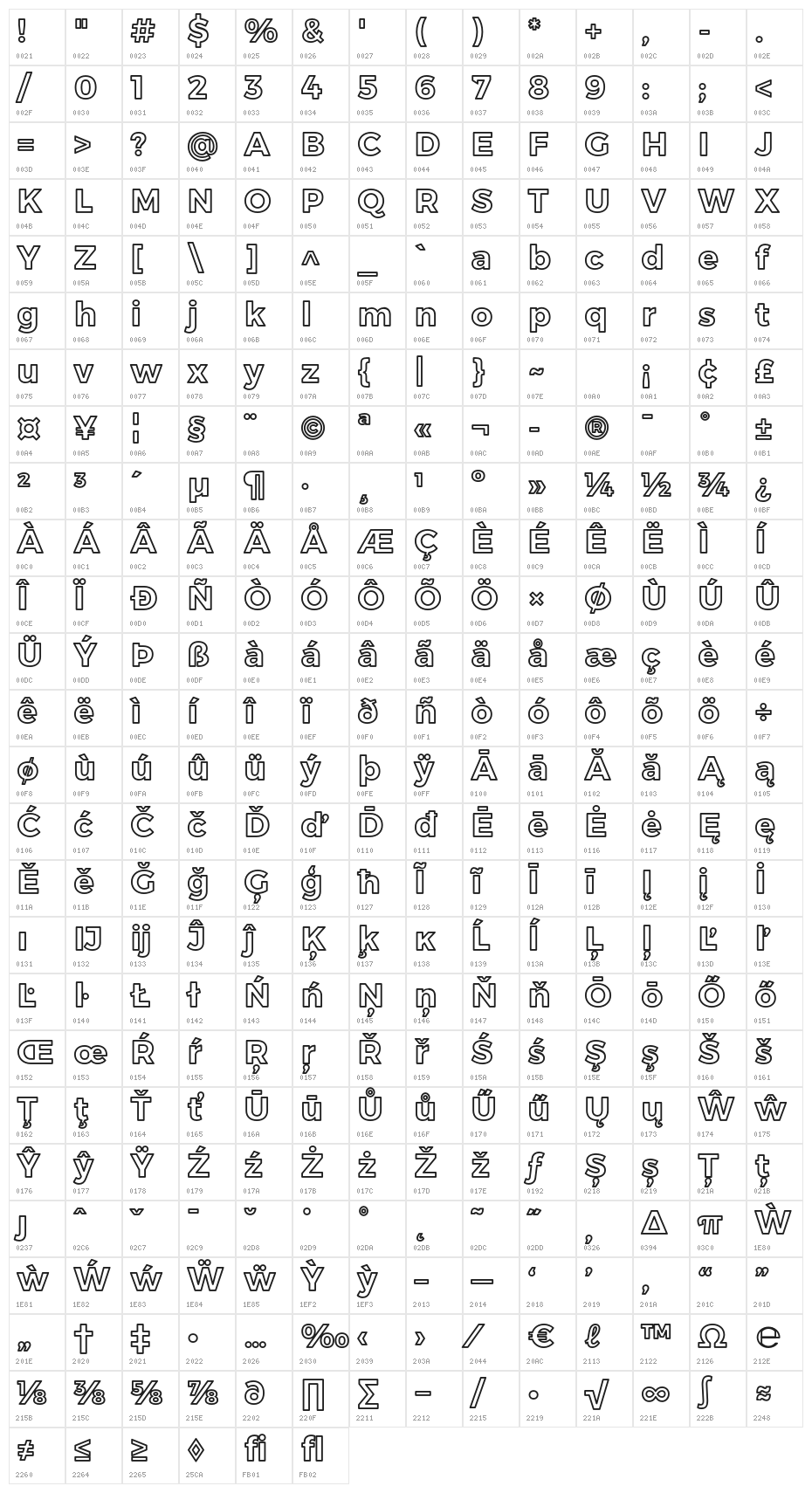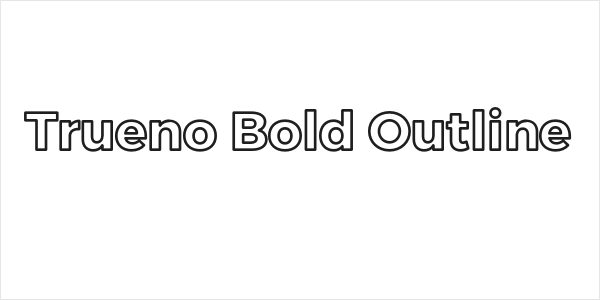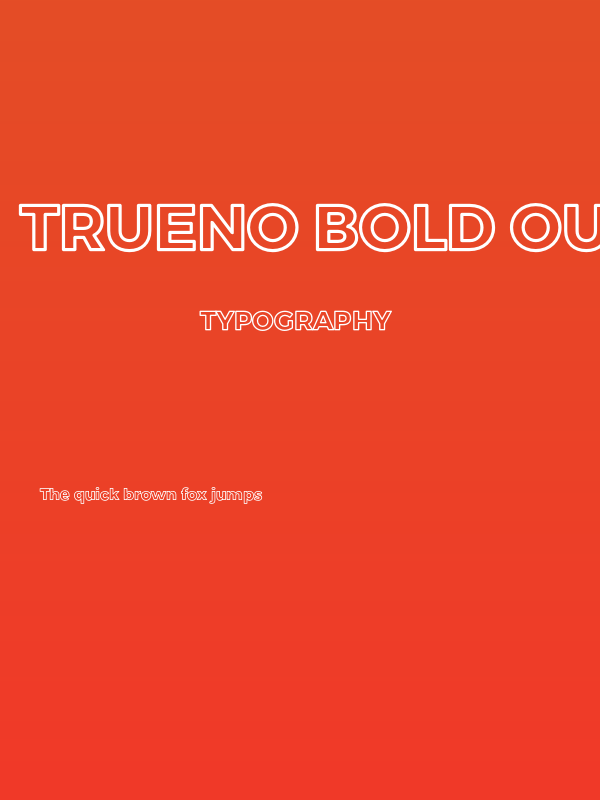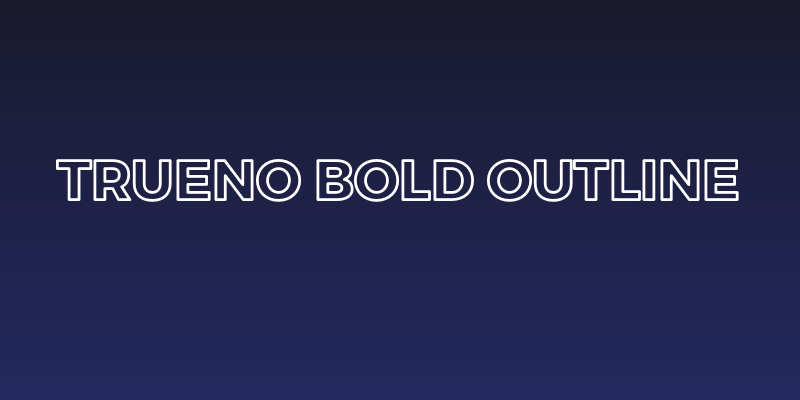
Trueno Bold Outline Font
Trueno Bold Outline Description
This font features a bold, outlined style that combines modern aesthetics with a clean and structured appearance. The uppercase and lowercase letters are well-defined with consistent stroke widths, providing a balanced and harmonious look. The numerals and special characters maintain the same bold outline, ensuring uniformity across all glyphs. The font's design is versatile, making it suitable for various applications where a strong visual impact is desired. Its outlined nature adds a layer of depth and dimension, making it stand out in both digital and print media.
| Proposed Projects | Ideal for headlines, posters, branding, and any design project requiring a bold statement. |